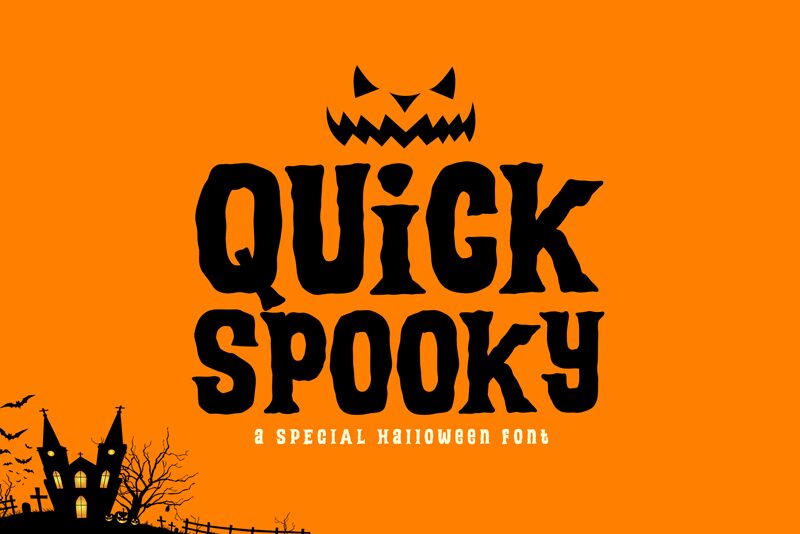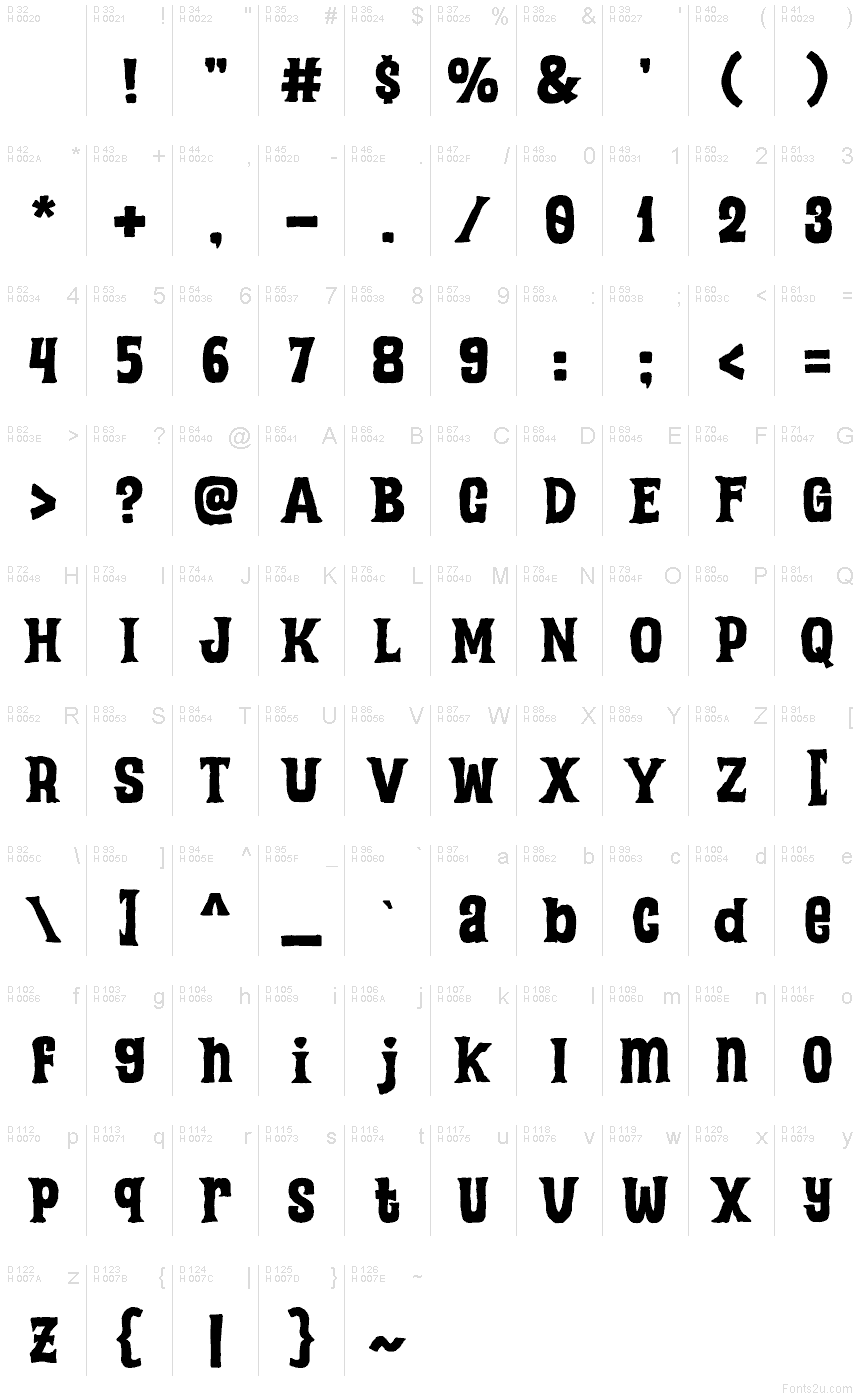
Quick Spooky
Quick Spooky font by Khurasan is a free Halloween eroded display font. Thick, inky letters look chewed at the edges, like they’ve been dragged through cobwebs, giving headlines a gritty, haunted thump. The chunky weight and irregular contours read fast at a distance, while the rough texture keeps things delightfully unsettling without getting messy.
Using Quick Spooky, your titles snap on party posters, haunted house flyers, trick-or-treat signage, spooky merch, social posts, and YouTube thumbnails. The tight rhythm packs punchy words into compact spaces, and the blobby silhouettes add instant mood. Pair this free font with a clean, narrow sans for body copy-let Quick Spooky shout, and the sans keep it readable.